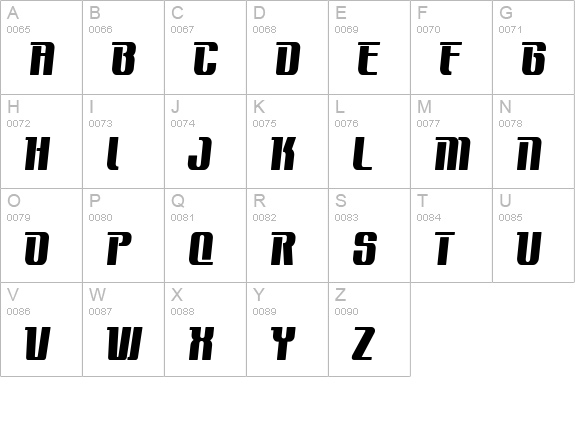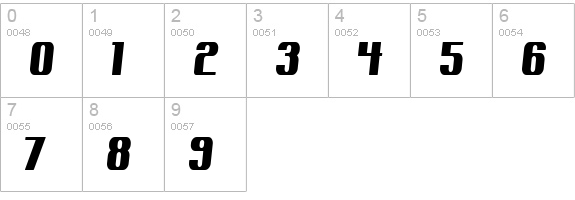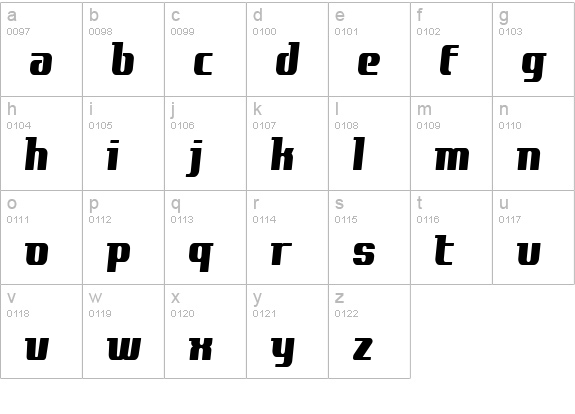
Contact ExtraBold is an extra-heavy, attention-grabbing variant in the Contact typeface family \xE2\x80\x94 well suited to high-impact headlines, posters, and bold branding.
Contact ExtraBold is a bold and impactful typeface that commands attention with its strong and confident presence. This font exudes a sense of power and authority, making it perfect for headlines, titles, and branding projects that require a bold statement. Its thick strokes and sharp angles convey a modern and dynamic feel, while maintaining excellent readability and legibility. What sets Contact ExtraBold apart is not only its striking design, but also the fact that it is available for free download at FontsMarket.com. This means that you can easily access this high-quality font for your personal and commercial projects without any cost. Whether you're designing posters, logos, or website headers, Contact ExtraBold is a versatile and eye-catching choice that will elevate your designs to the next level. Download Contact ExtraBold today and make a bold statement with your typography.